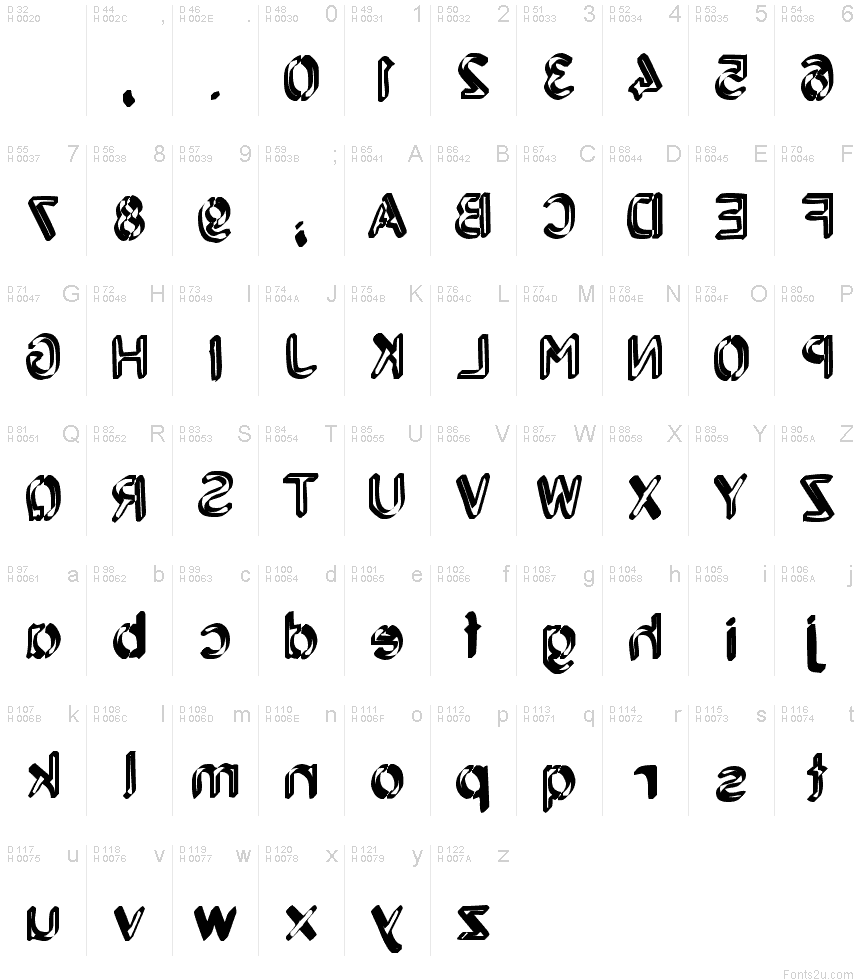
Backcab Original
Backcab Original font by Jeni Pleskow is a free decorative outlined display typeface that turns every word into a visual puzzle. Heavy inky strokes twist into mirrored curves, while sharp cutouts carve unexpected light into the letters, so text feels like it’s been sculpted from black lacquer. Within the Backcab family, this Original style pushes that reversible, almost ambigram-like vibe, giving your titles a strange, magnetic rhythm that pulls the eye back for a second read.
Using Backcab Original, you can brand underground music events, experimental zines, sci‑fi posters, club flyers, album covers, and edgy fashion labels with the same offbeat energy. This free font shines at oversized headline scales, where its intricate shapes stay crisp and legible. Pair it with a clean, unobtrusive sans serif for supporting text to let Backcab’s dense, fluid forms stay center stage.